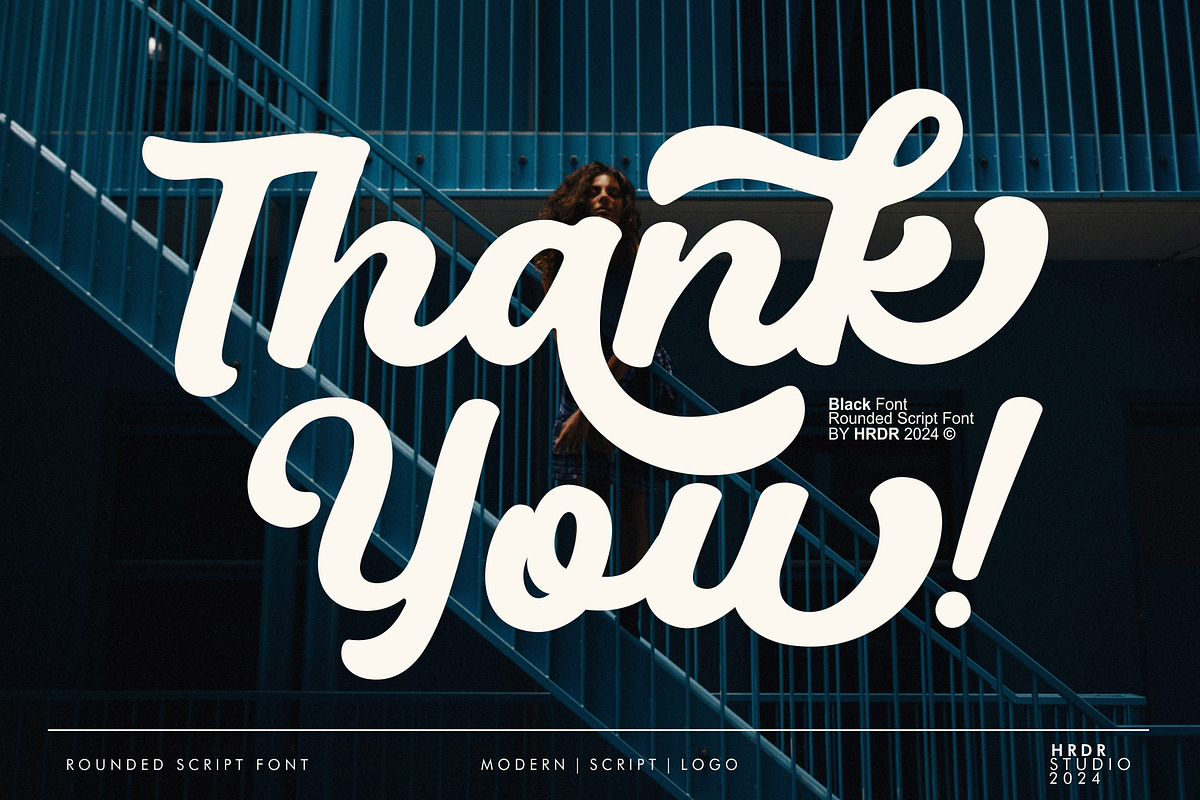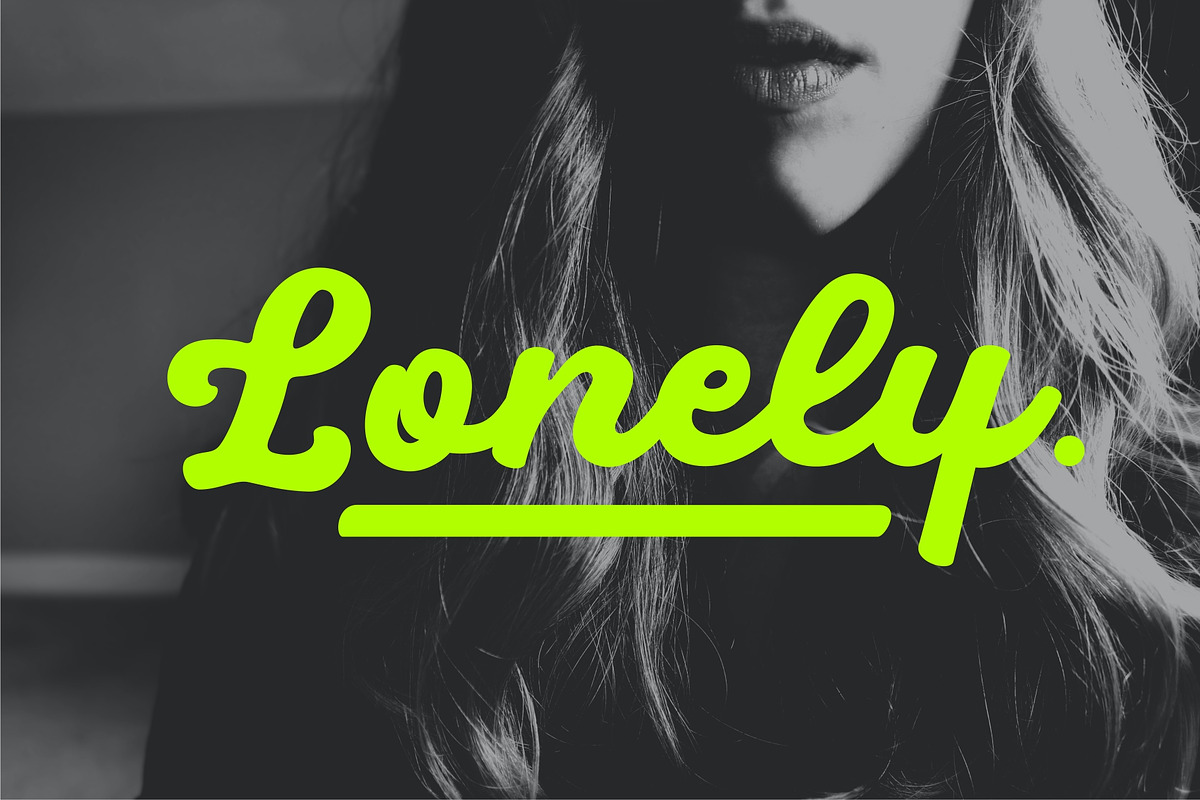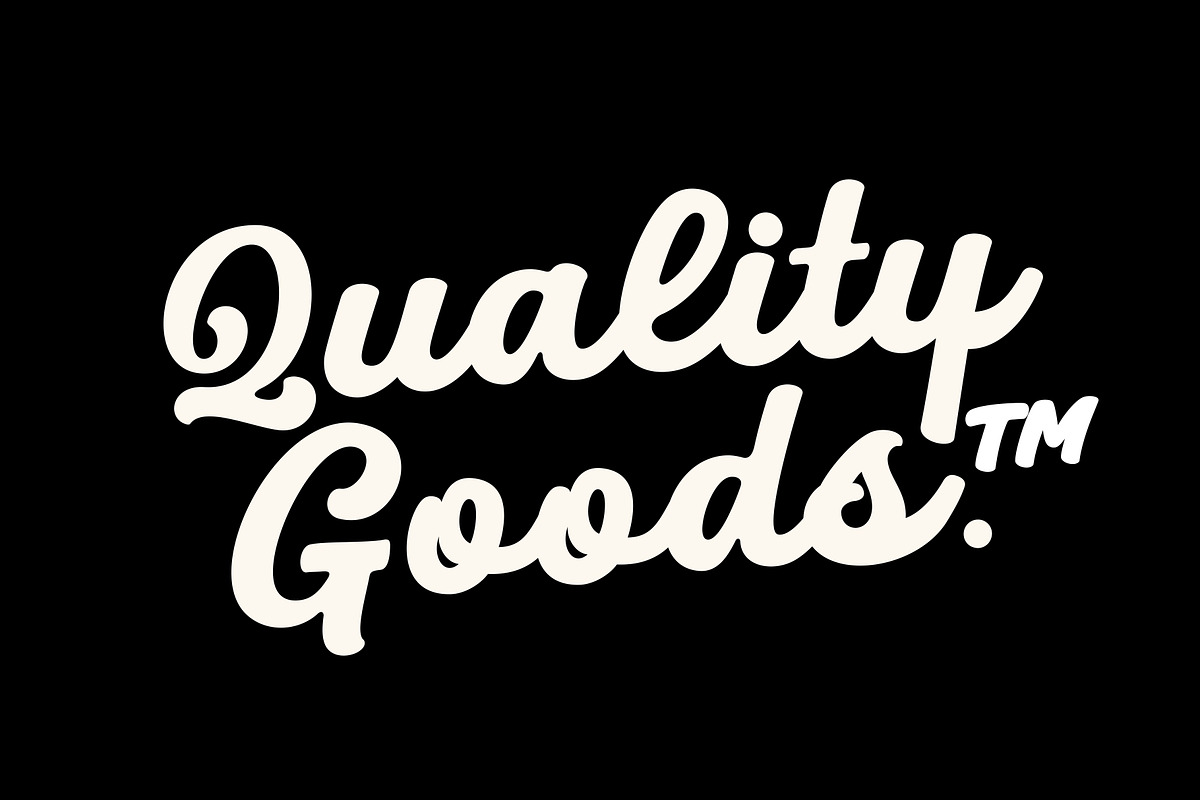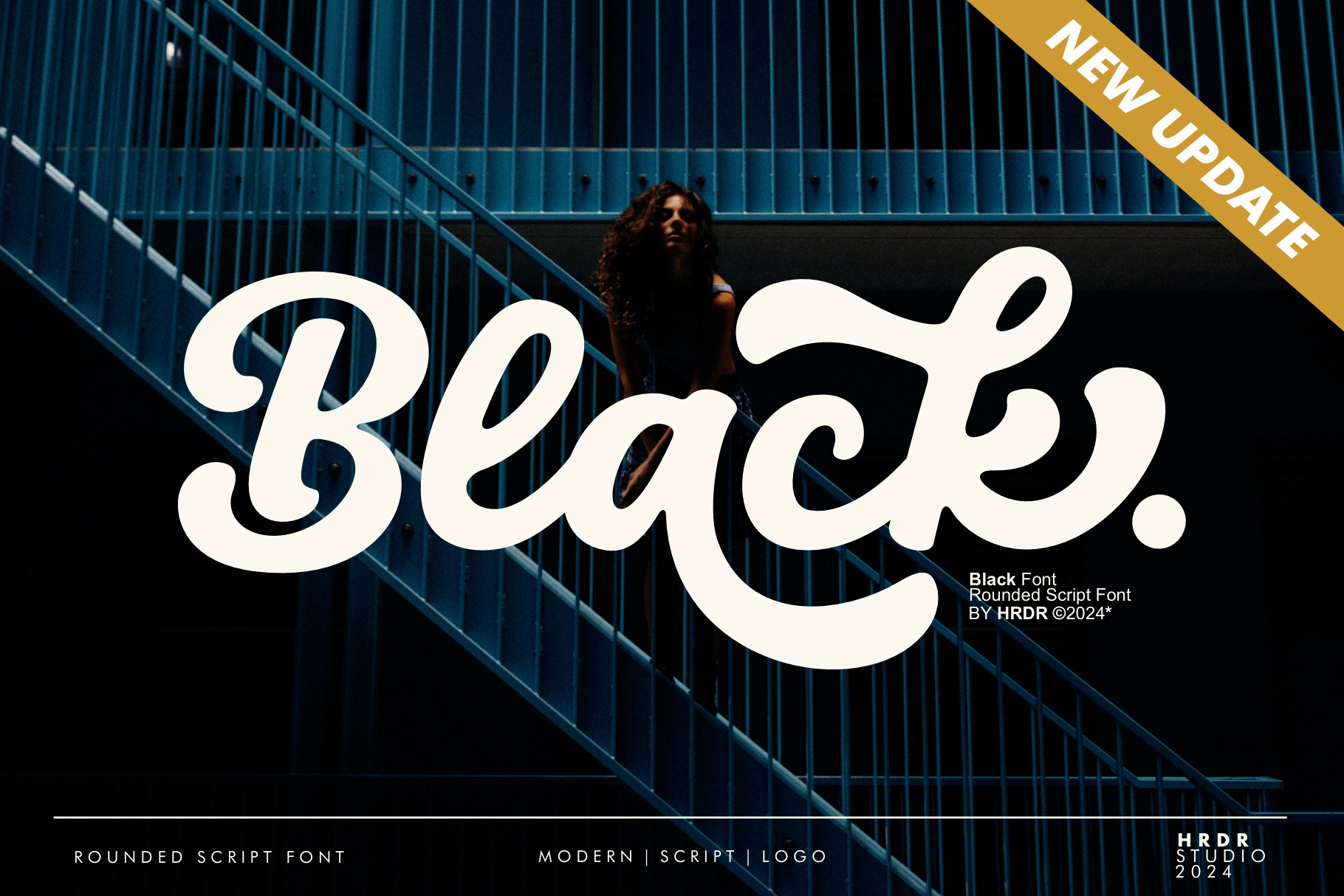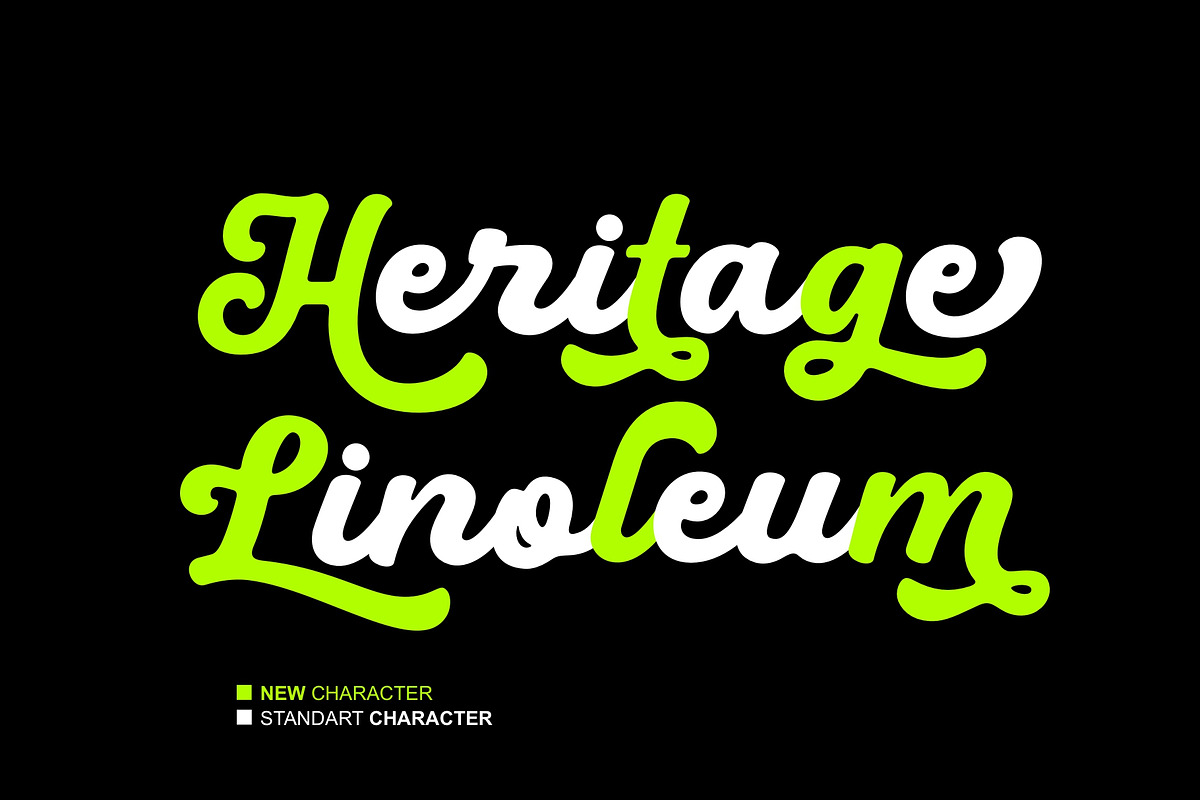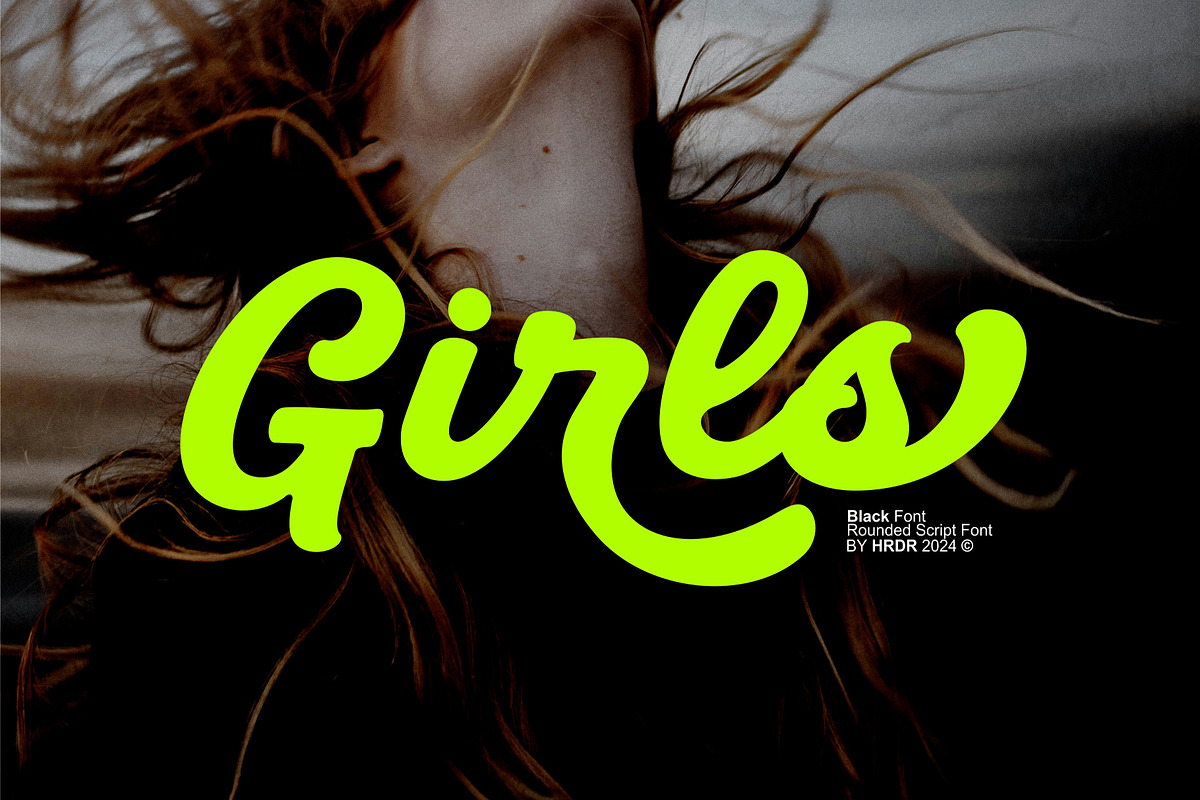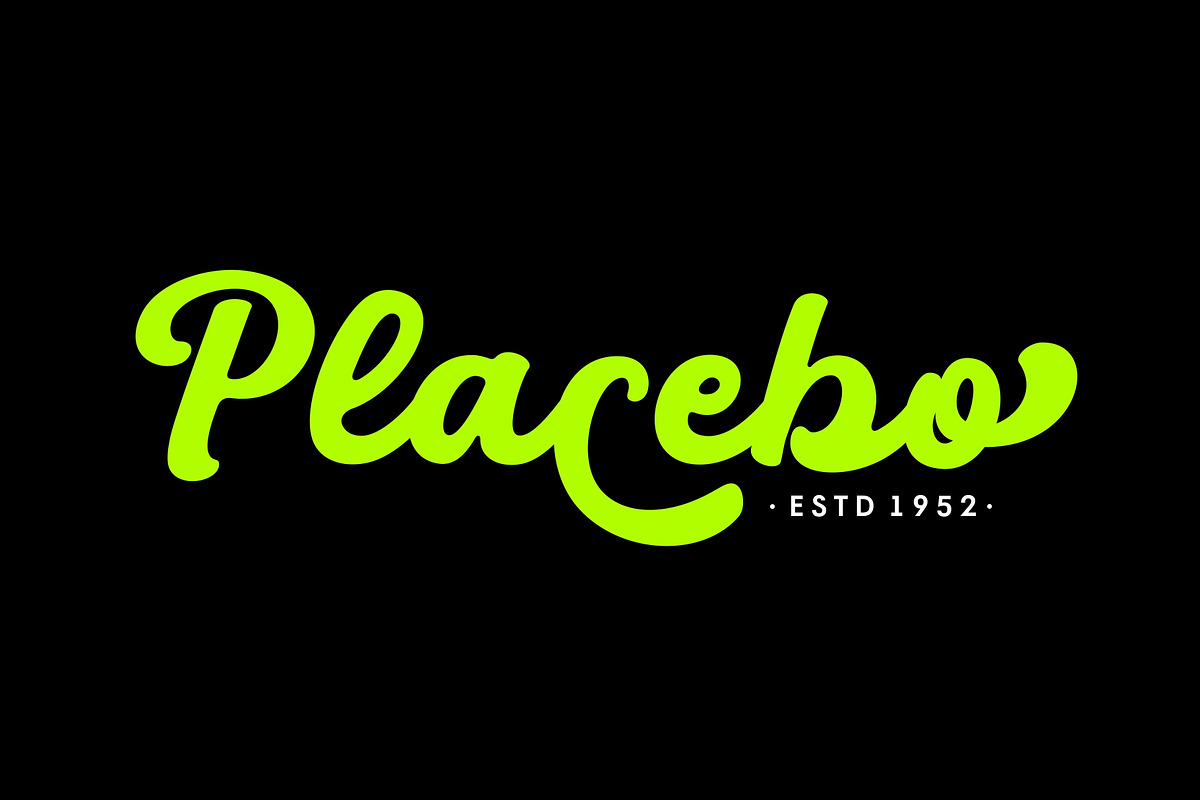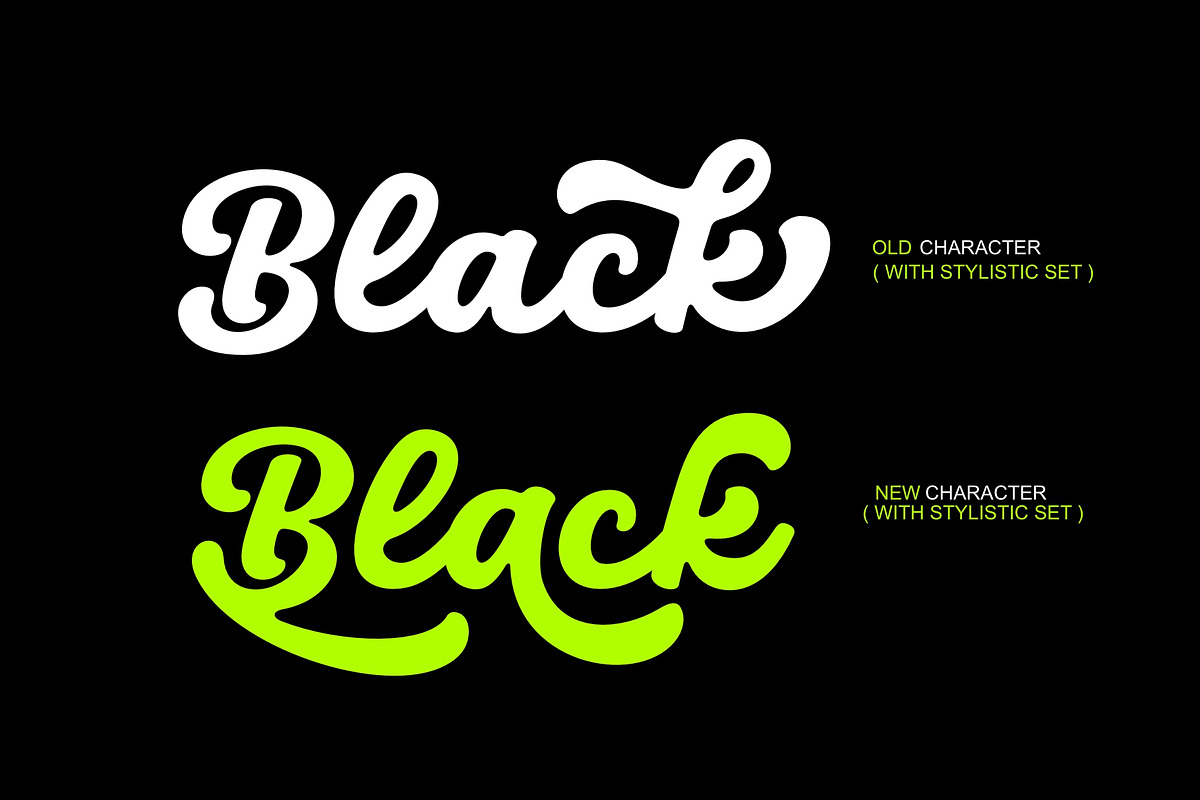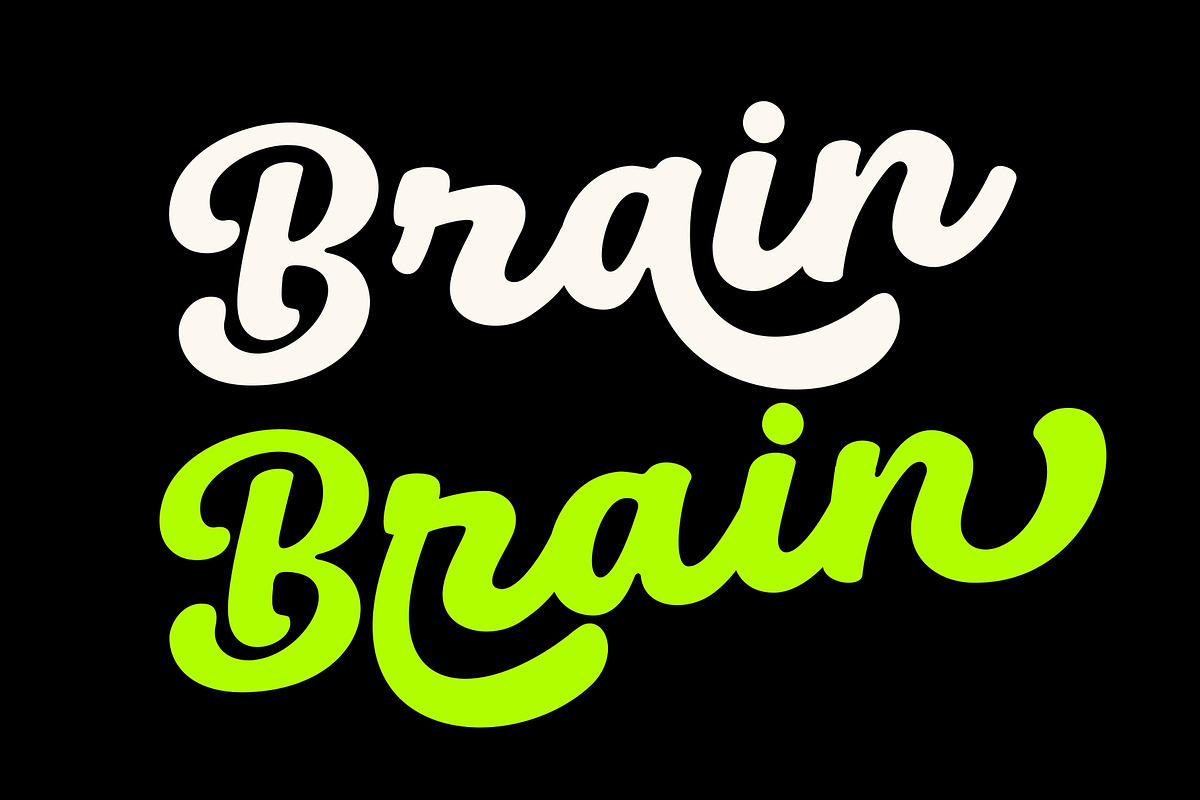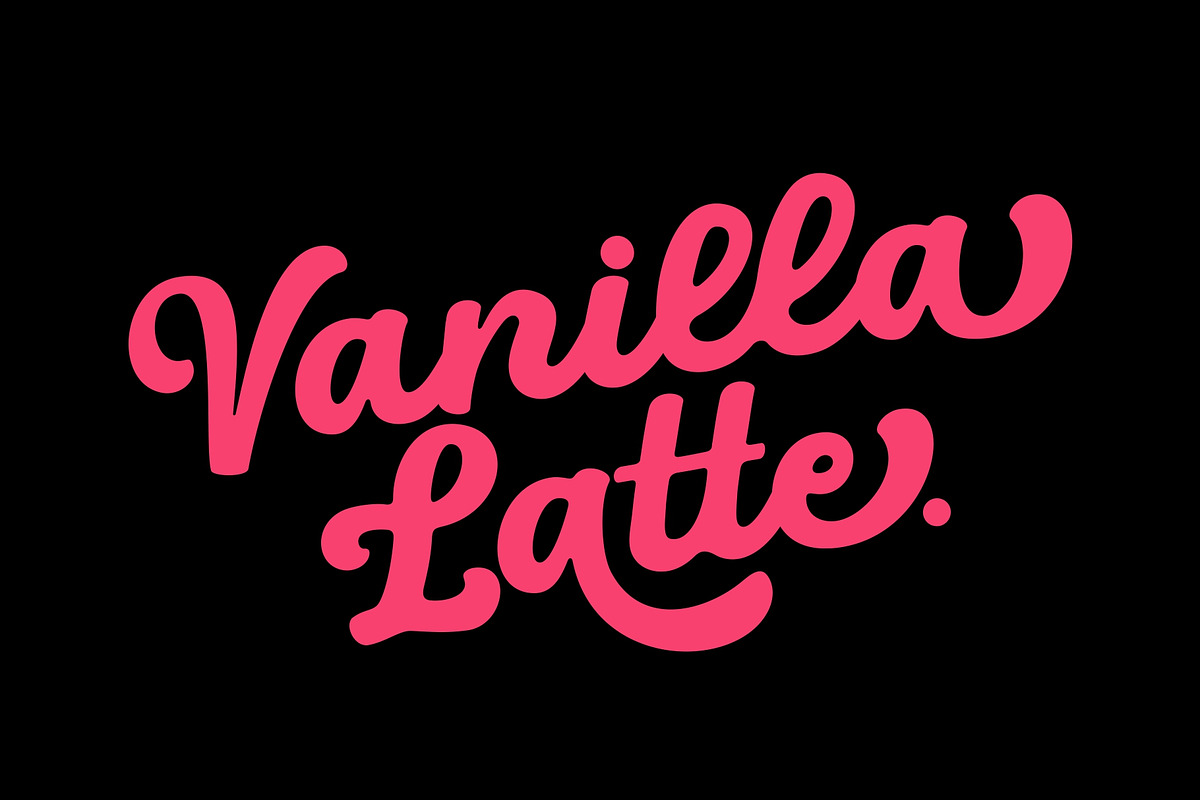
Black - Rounded Script Font
Meets Black, This bold and curvy script font evokes a sense of retro and elegant charm. Perfect for eye-catching headlines, artistic logos, creative branding, and playful posters, its handwritten style adds a personal and expressive touch to any design project. Ideal for designers looking to create a fun and unique impression.
- numeric & Multilingual support
- Stylistic Alternates with Ss01, Ss02, Ss03, Ss04
1.Updated September 27 2024 : was added new Alternates Characters and swash style.
2.Updated February 12 2026 : was added new different style for Black font 2.0 ( update stylistic alternates )